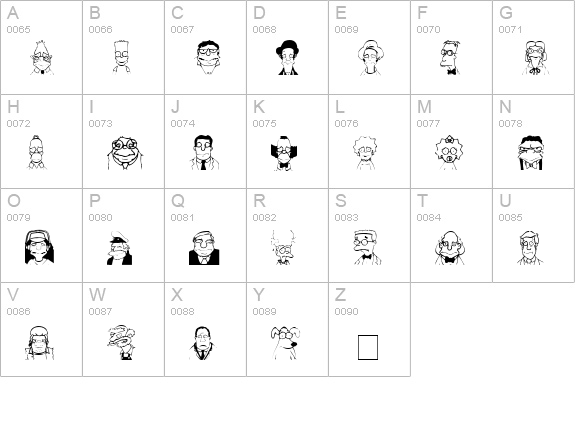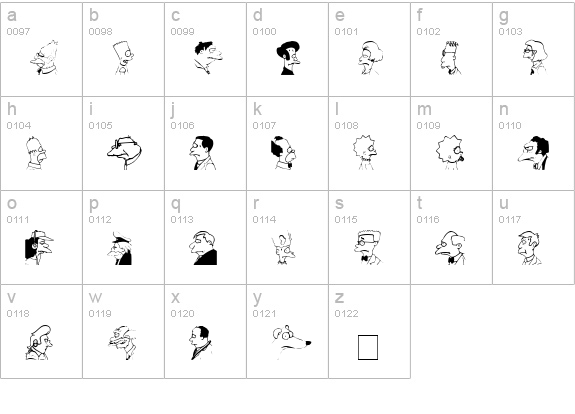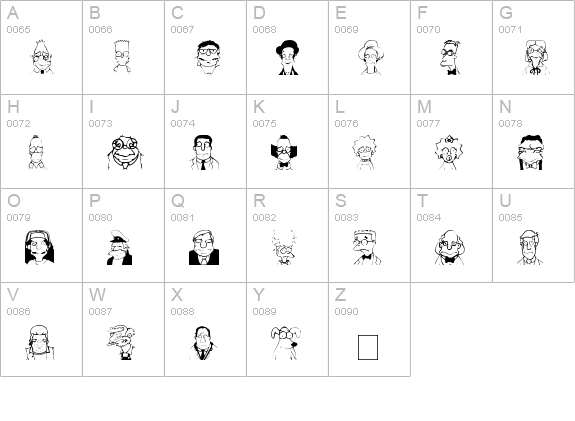
Springfield MugShots Font Details
Introducing Springfield MugShots, a captivating font that adds a touch of intrigue and mystery to any project. With its bold and distinctive letterforms, this font captures the essence of vintage mugshot photography, evoking a sense of nostalgia and curiosity. Each character in Springfield MugShots is meticulously crafted, showcasing the raw and unfiltered nature of mugshots while maintaining a sense of elegance and style. The uneven strokes and imperfect details give this font an authentic and gritty feel, making it perfect for designs that require a hint of edginess. But what sets Springfield MugShots apart from other fonts is its versatility and accessibility. It is not only a visually stunning typeface but also, importantly, a free font. Yes, you read that right, Springfield MugShots is freely available to download at FontsMarket.com, making it accessible to designers, artists, and creatives alike. Whether you're working on a poster for a crime-themed event, designing a book cover for a thrilling mystery novel, or simply adding a unique touch to your personal branding, Springfield MugShots is the perfect font to bring your vision to life. Its bold presence and captivating style will undoubtedly make your designs stand out from the crowd. Don't miss out on the opportunity to add Springfield MugShots to your font collection. Download it now for free at FontsMarket.com and unlock the endless possibilities it offers. Let your creativity run wild with this captivating and freely available typeface.